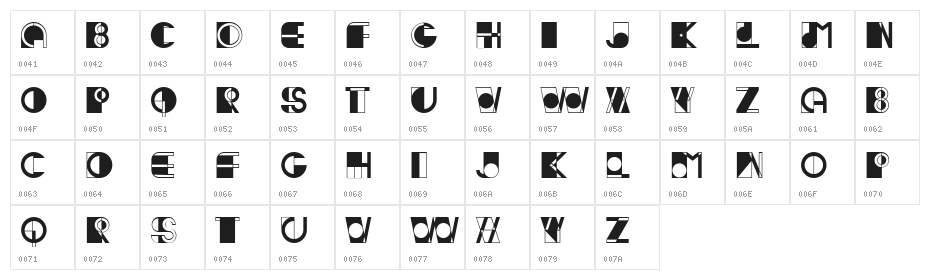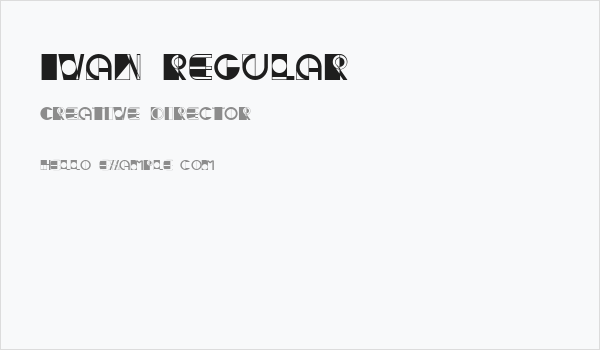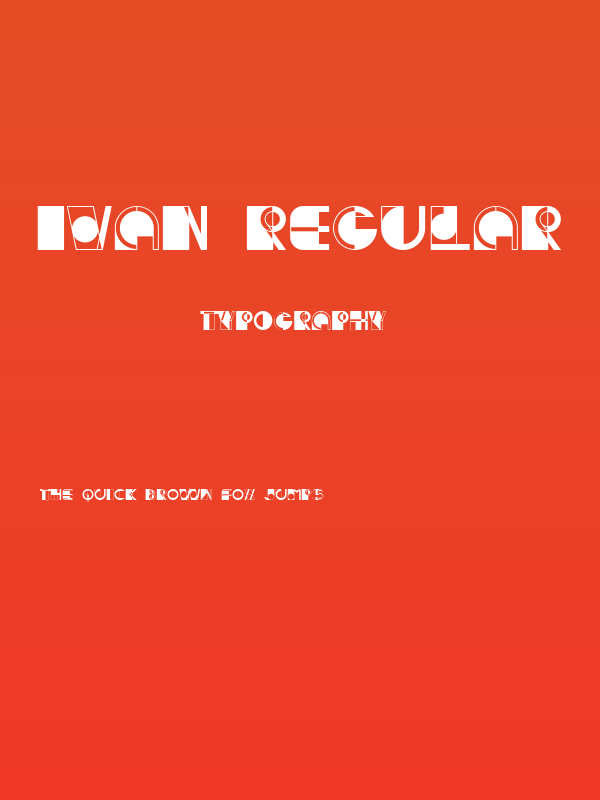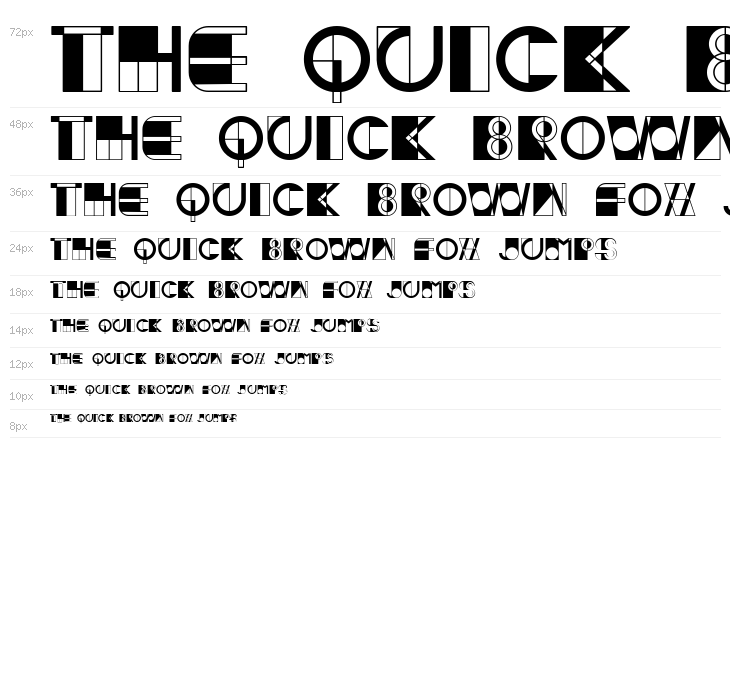
Ivan Regular Font
Ivan Regular Description
This font features a bold and geometric design with a strong emphasis on circular and angular shapes. Each character is crafted with a unique combination of solid and outlined elements, creating a striking visual contrast. The uppercase letters are particularly distinctive, with some characters incorporating split or mirrored designs. The overall appearance is modern and artistic, making it ideal for projects that require a bold statement. The font's playful yet structured style lends itself well to creative and contemporary applications.
| Use Case | Logos, Headlines, Posters |
| Proposed Projects | Ideal for modern branding, poster designs, album covers, and creative digital media. |